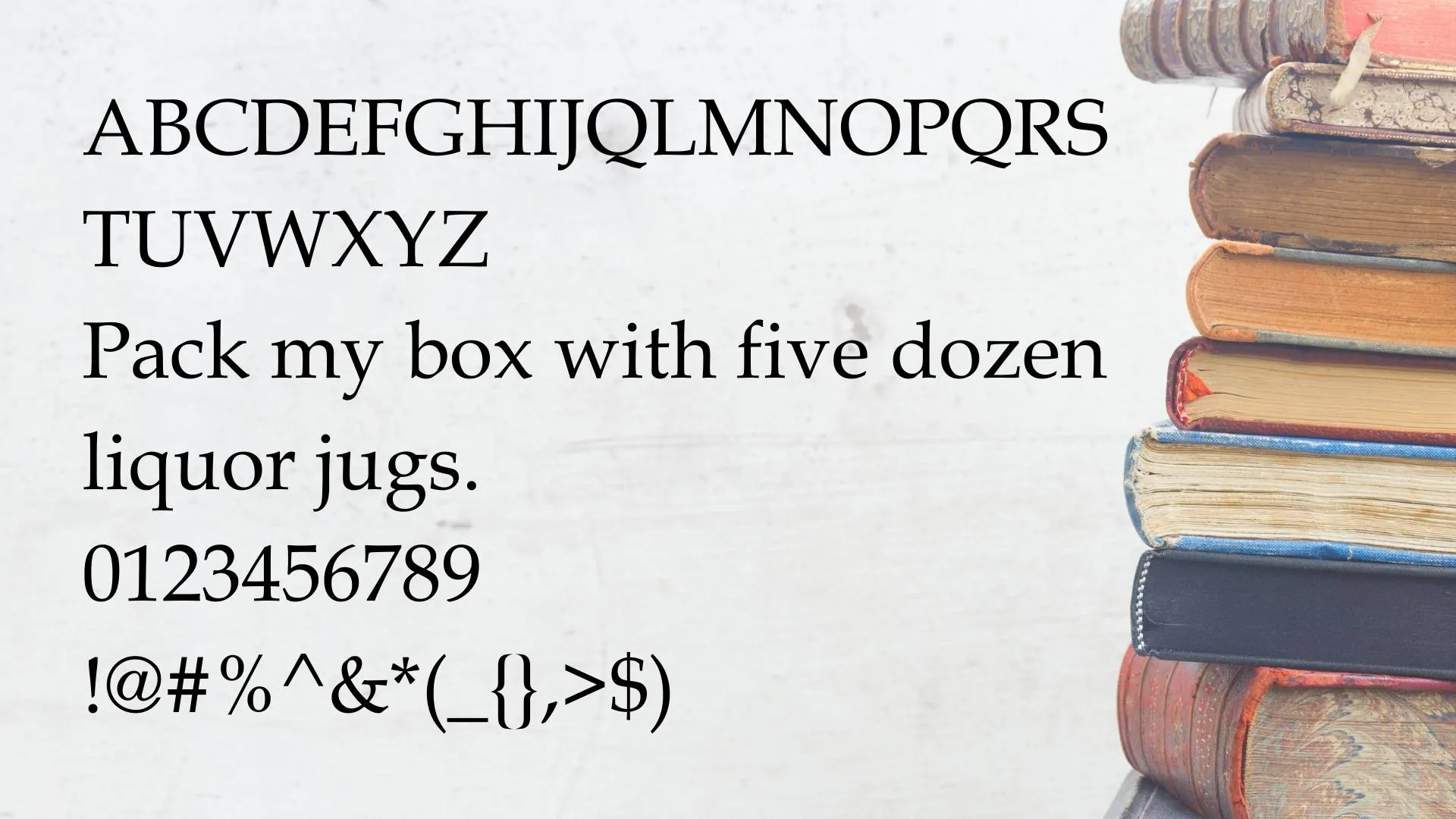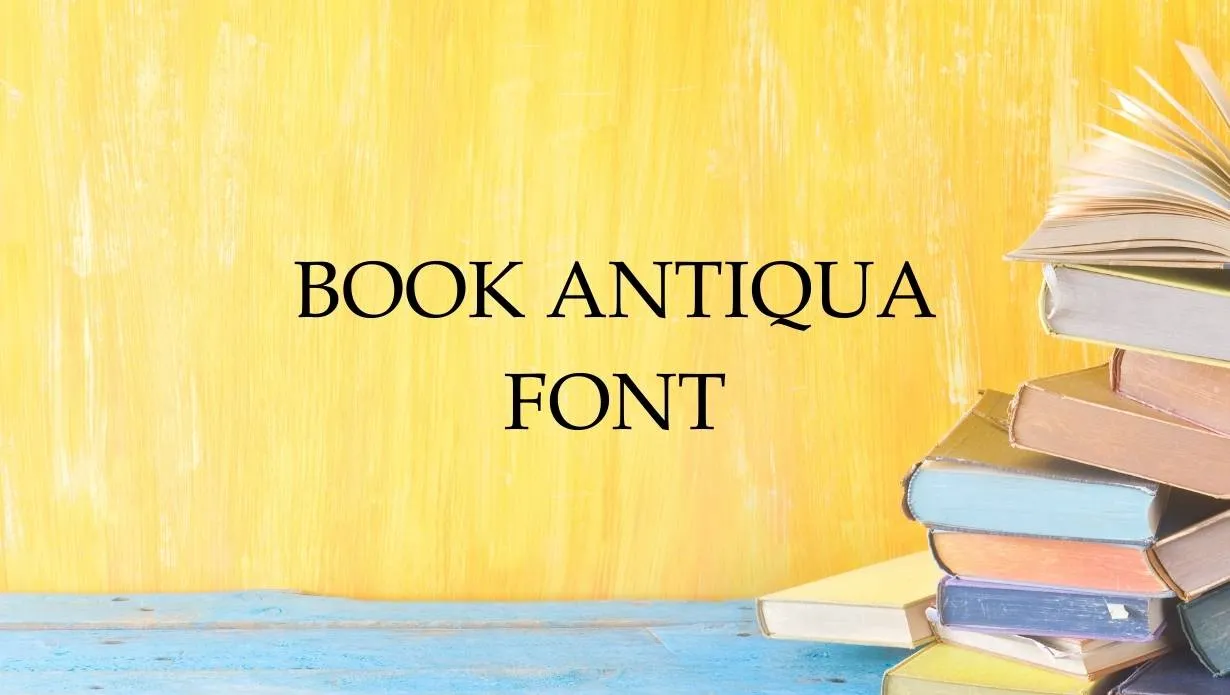
About Book Antiqua Font
Book Antiqua is a soft, modern, and clear serif typeface that comes in 18 styles and 4 weights including regular, italic, bold, and bold italic. This is easy to read and provides great legibility to designs as well as texture contents.
This typeface is also well-known for its pairing functions and it can be used with the pairing of Georgia font, Arial font. It is available for free in all your personal and private projects.